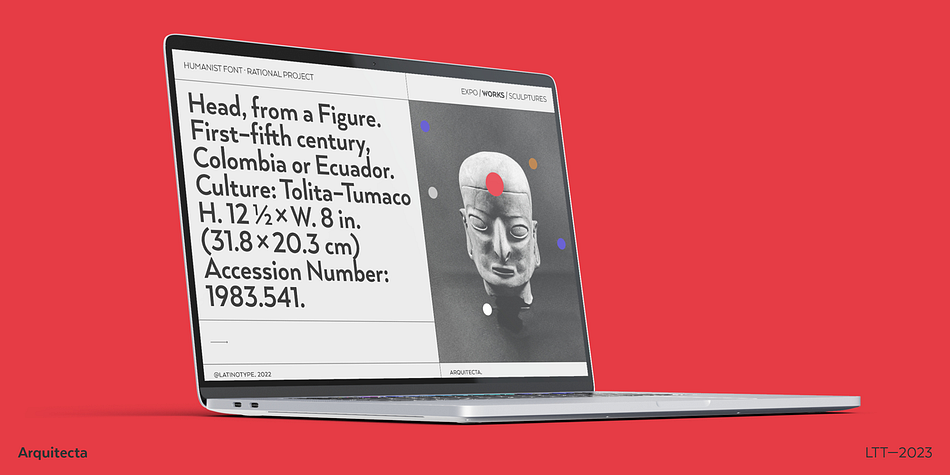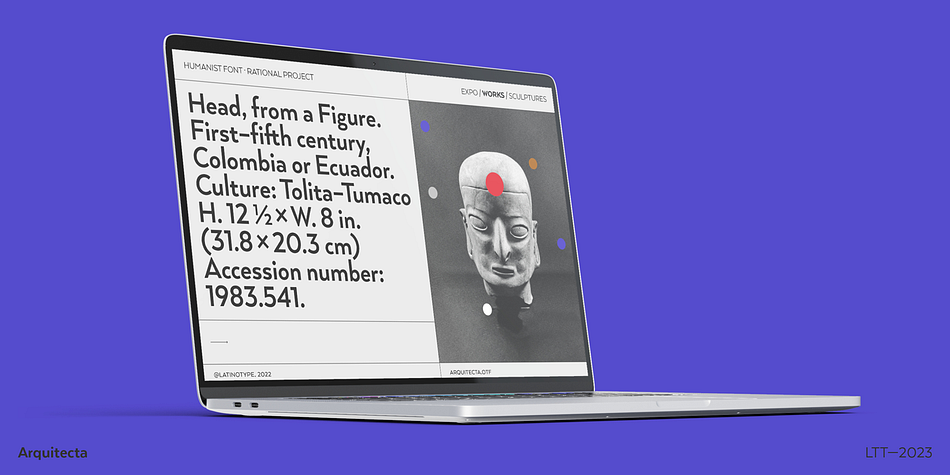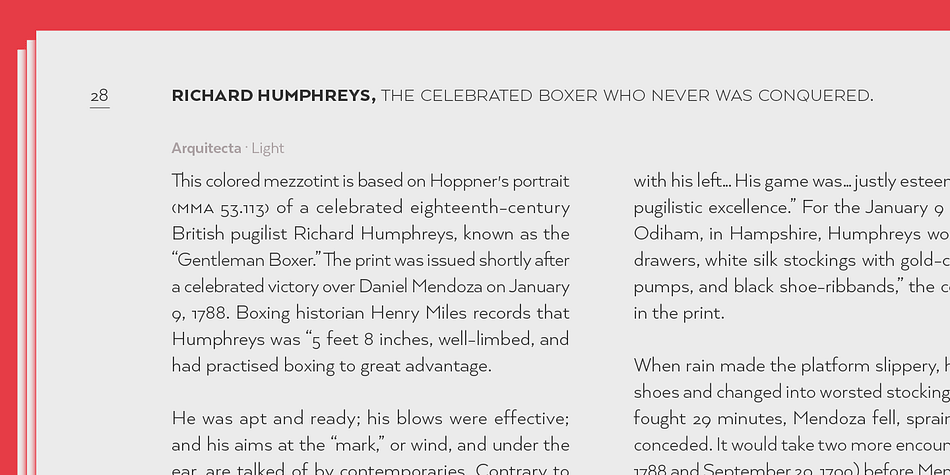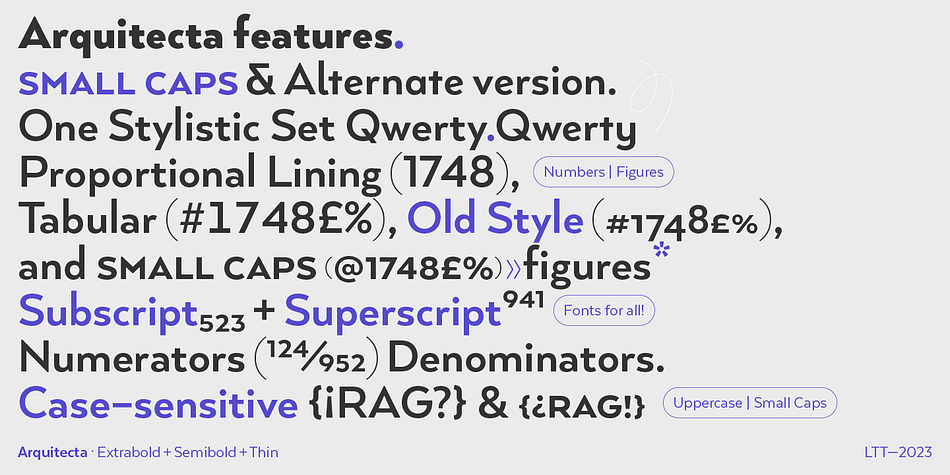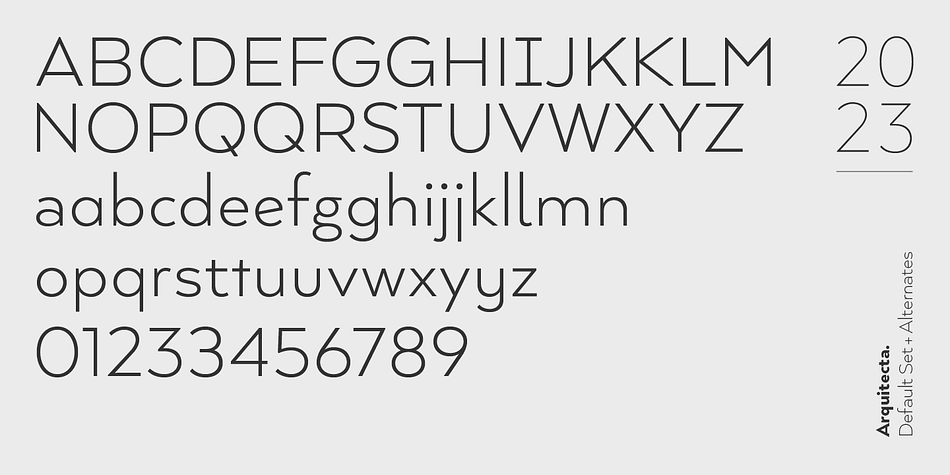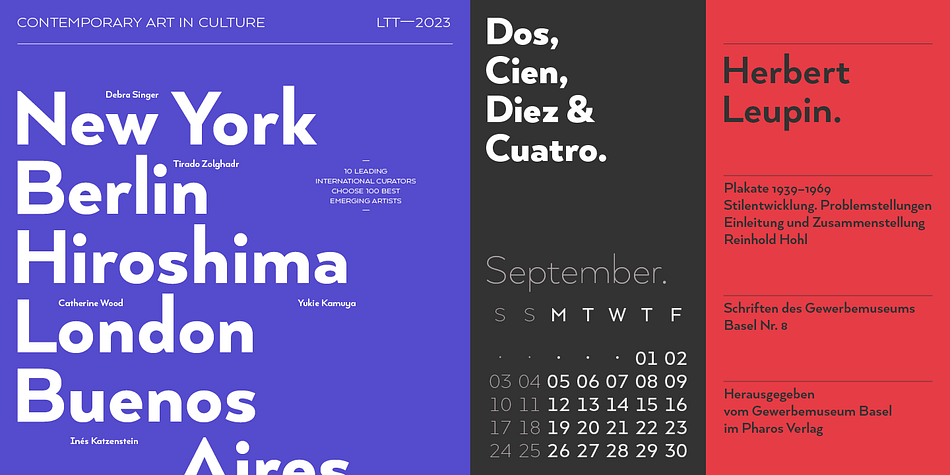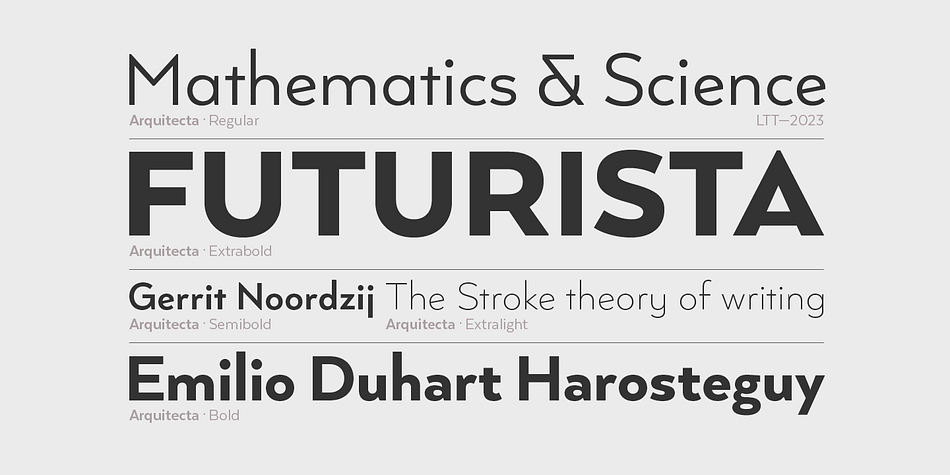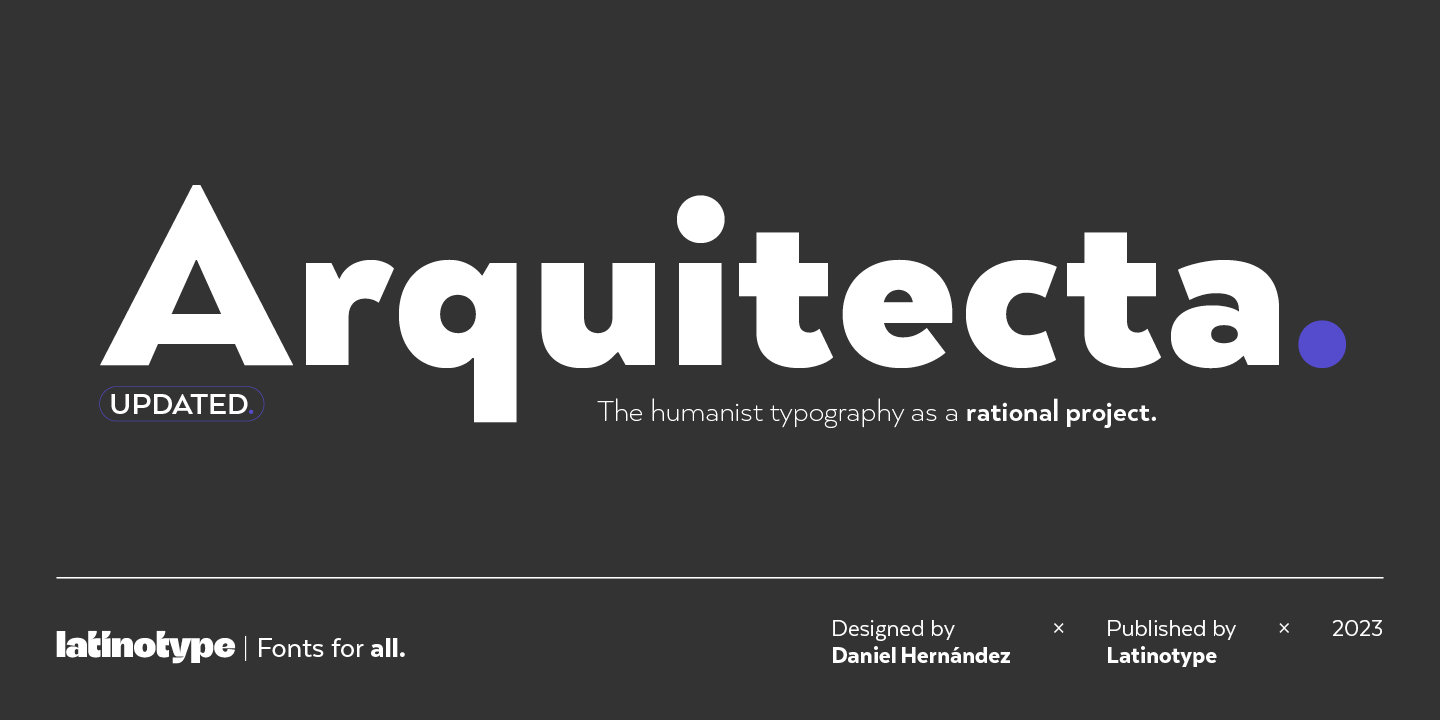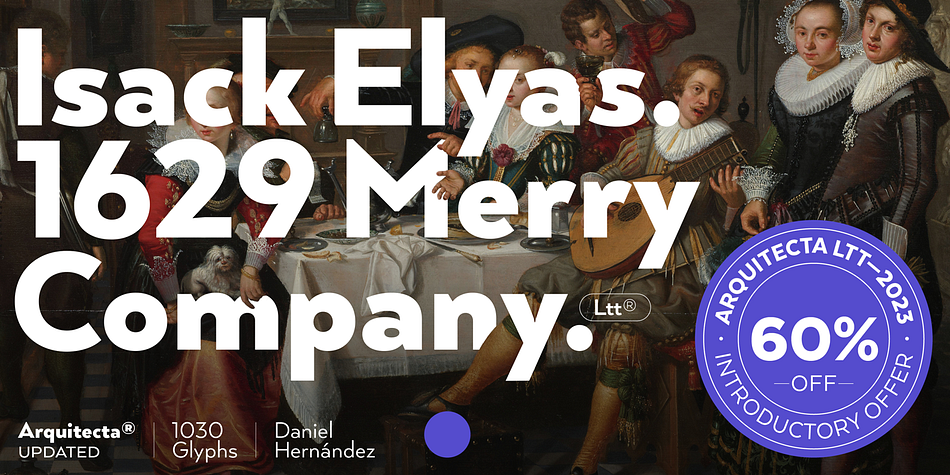
Arquitecta is a sans serif font family. This typeface has sixteen styles and was published by Latinotype.
Arquitecta. The humanist typography as a rational project.
Since the experimentation from the Bauhaus through modern sans history we looked for a new mix to construct a rational geometric typeface with humanist proportions suitable for text layout and continuous reading.
Inspired by American & European hand lettering from the first half of the past century, Arquitecta finds his own space as a great alternative for paragraphs in front of classics like Futura, Kabel or Avant Garde.
The family contains 8 upright romans and 8 italics with the following features:
- European accents, Old Style Numbers, Numerators & Fractions.
- Ink traps to avoid press impressing spots & hinting optimized.
- Small X-height with accentuated ascenders y descenders.
Designed by Daniel Hernández Sánchez y Miguel Hernández Montoya between the months of August y December of 2013.